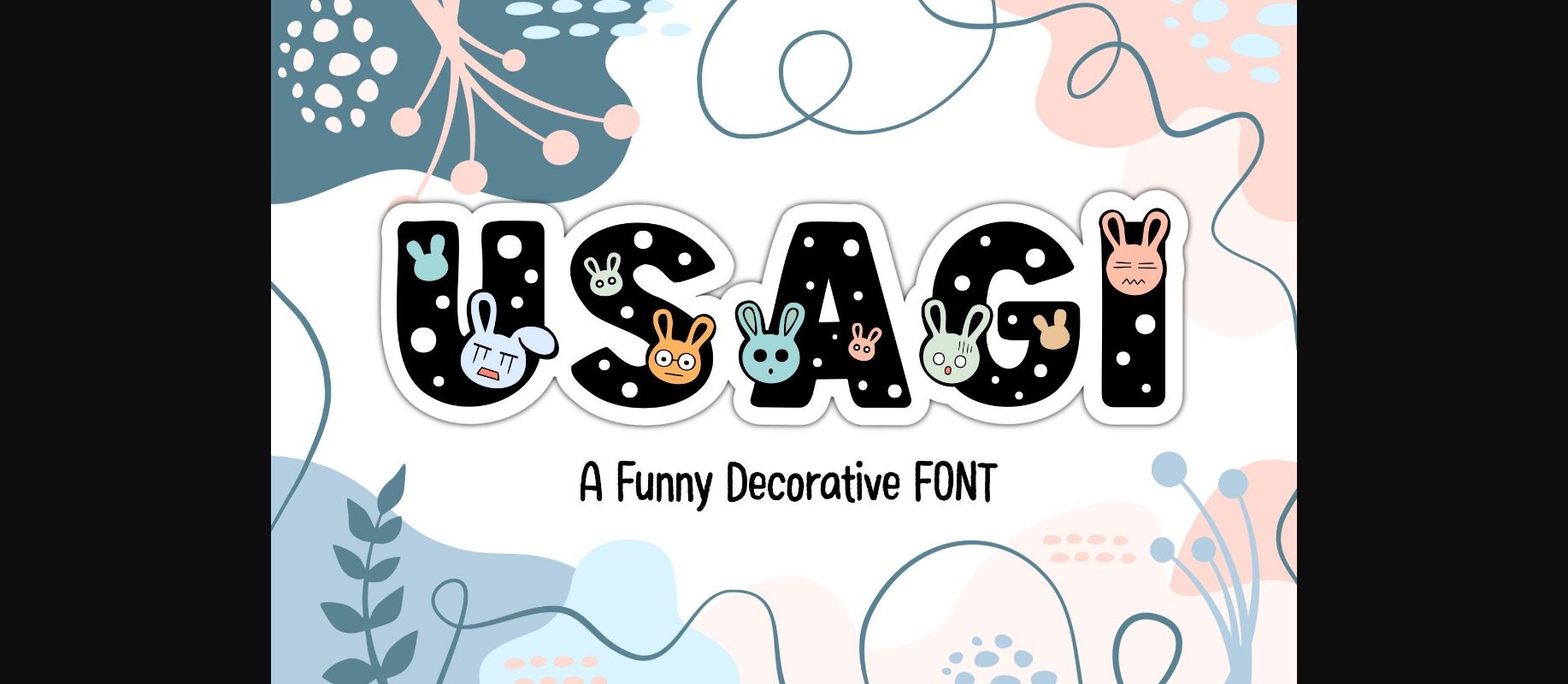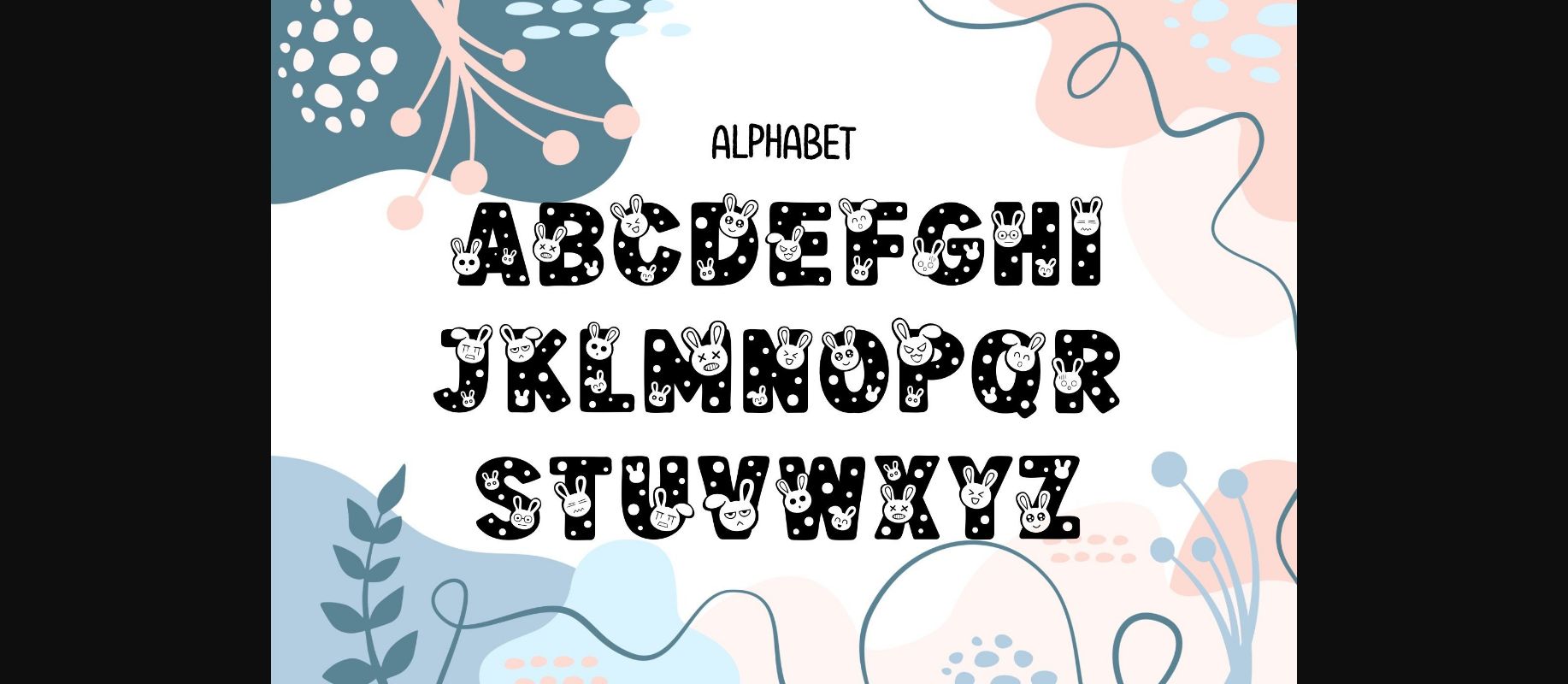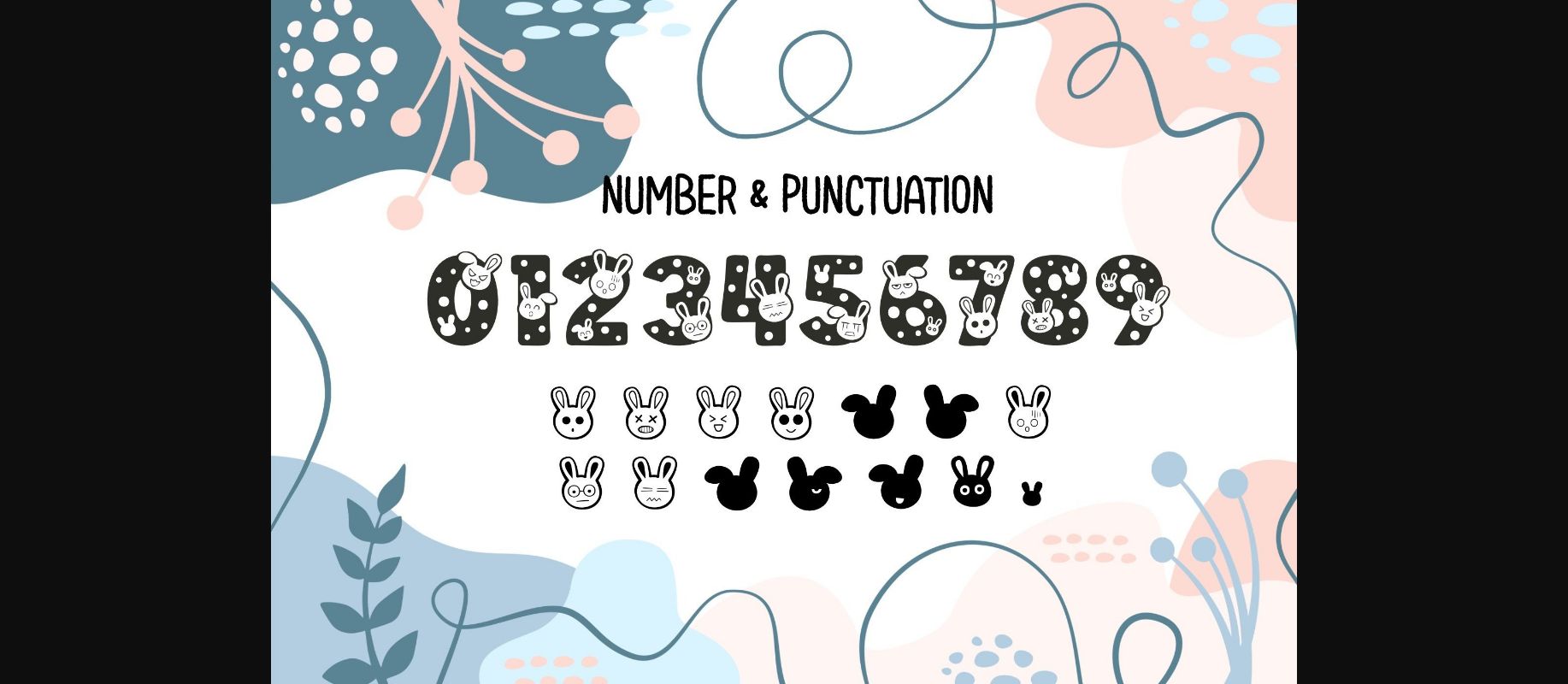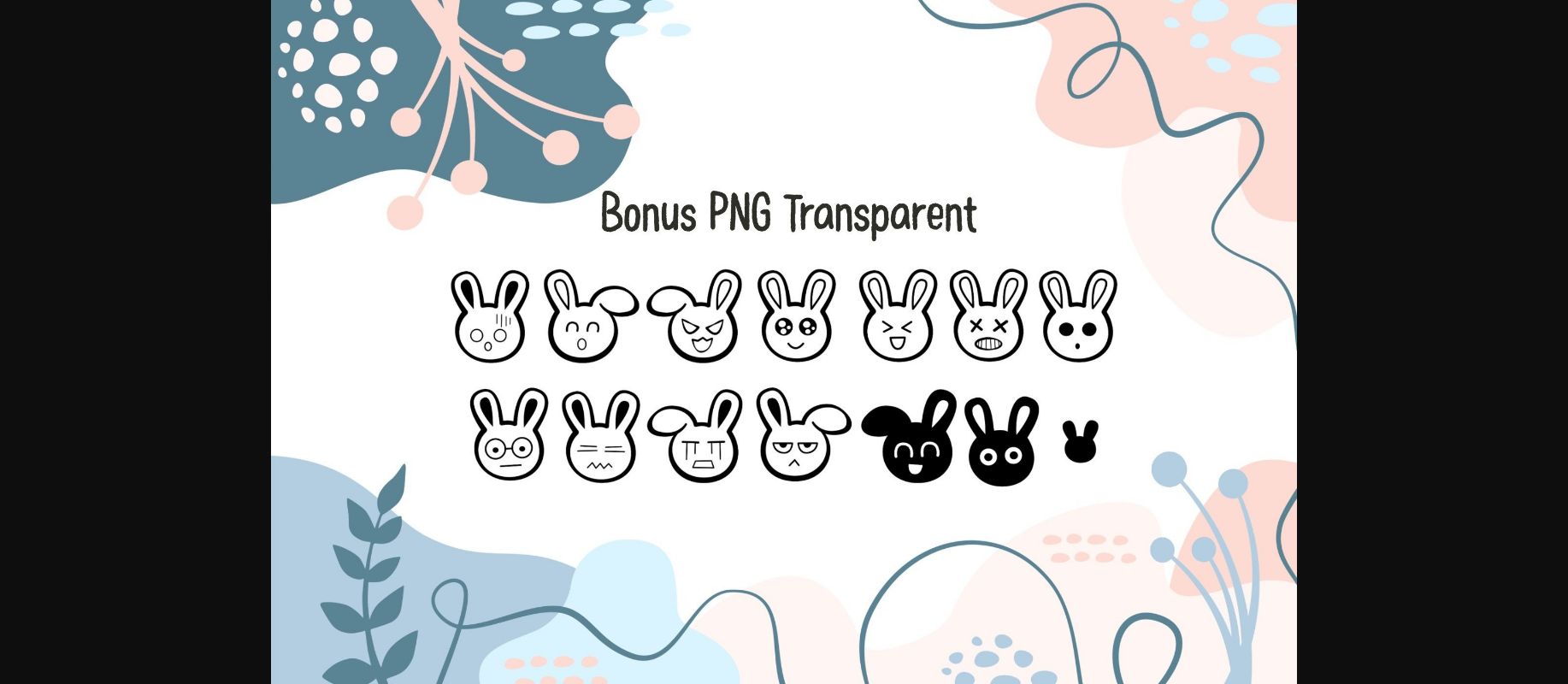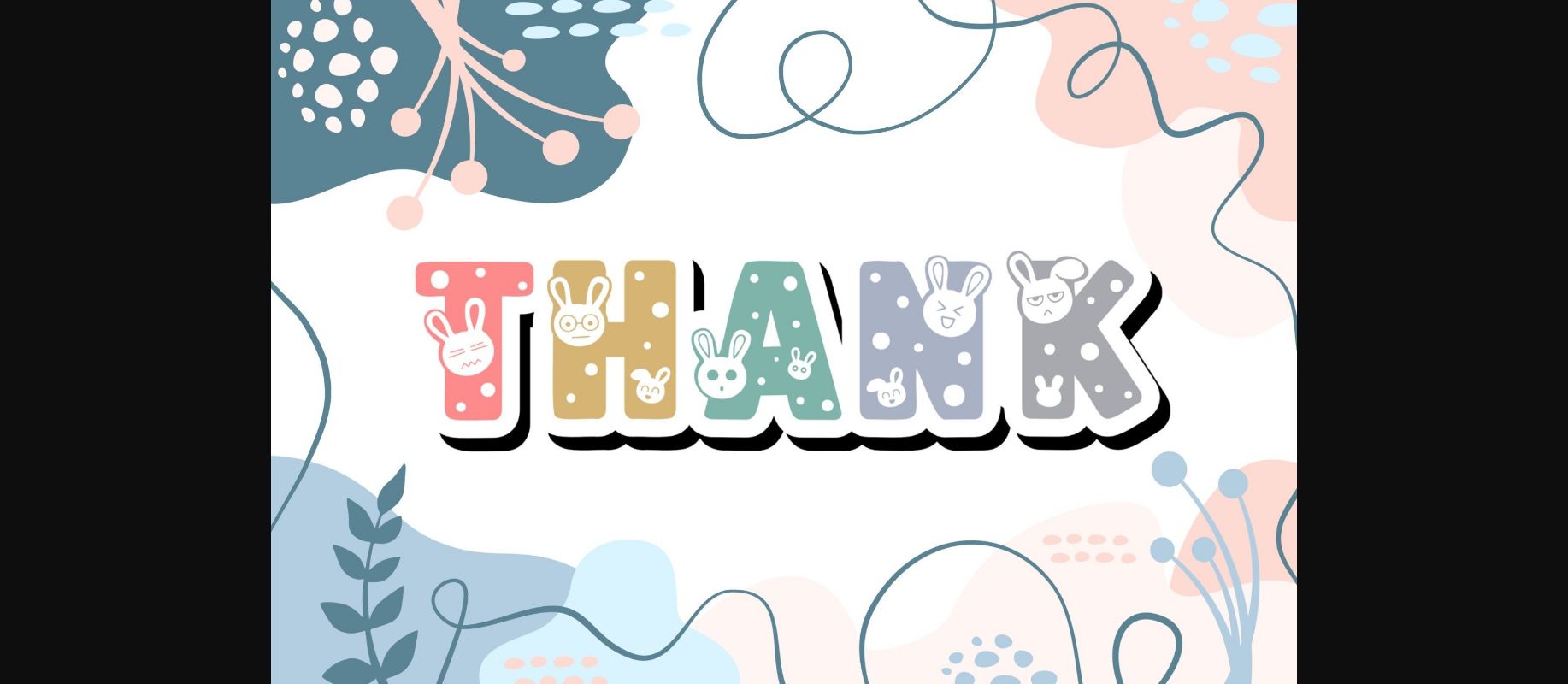
HomeDecorative FontsUsagi Font Decorative Fonts Usagi Font FacebookXPinterestWhatsApp 1 of 7 ... Usagi Font Poster 2... Usagi Font Poster 3... Usagi Font Poster 4... Usagi Font Poster 5... Usagi Font Poster 6... Usagi Font Poster 7... About Usagi Font Usagi is a funny decorative font that will fill your designs with cheerfulness! Use it on covers, posters, crafty DIY projects, and anything that needs to pop! DOWNLOAD NOW People also explored Sillagatture Font Hey Lover Font Belloti Font Elizabeth Font Vitamin Font Kanghara Font Retro Mexico Font Bokeseni UltraLight Font Rattae Font 350 0 TagsUsagiUsagi Font Previous articleWave Surfing FontNext articleStone Head Font LEAVE A REPLY Cancel reply Comment: Please enter your comment! Name:* Please enter your name here Email:* You have entered an incorrect email address! Please enter your email address here Website: Save my name, email, and website in this browser for the next time I comment. Personal Use Free ABC Personal Use Free Read more about this font Fakedes Personal Use Free Read more about this font Bruttney Personal Use Free Read more about this font Cheque Personal Use Free Read more about this font BLOG Free Fonts Risk: Why Free Fonts Can Be Dangerous for Designers Free Fonts Risk: Why Free Fonts Can Be Dangerous for Designers Using free fonts is a common practice in web and graphic design. However, the... Modern Sans-Serif Fonts That Brands Love in 2025 Top 10 Handwritten Fonts That Elevate Your Designs Using Fonts in Digital Marketing: Tips to Strengthen Your Brand Identity